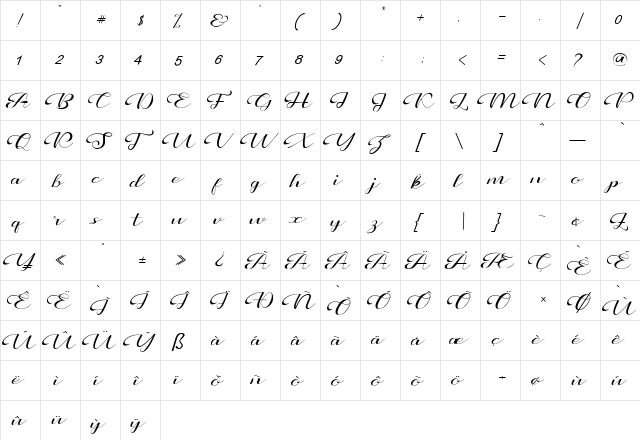
augustina Regular
Design Context for augustina Typeface
augustina is a composed and adaptable typeface that performs quietly and consistently across a wide range of design contexts.